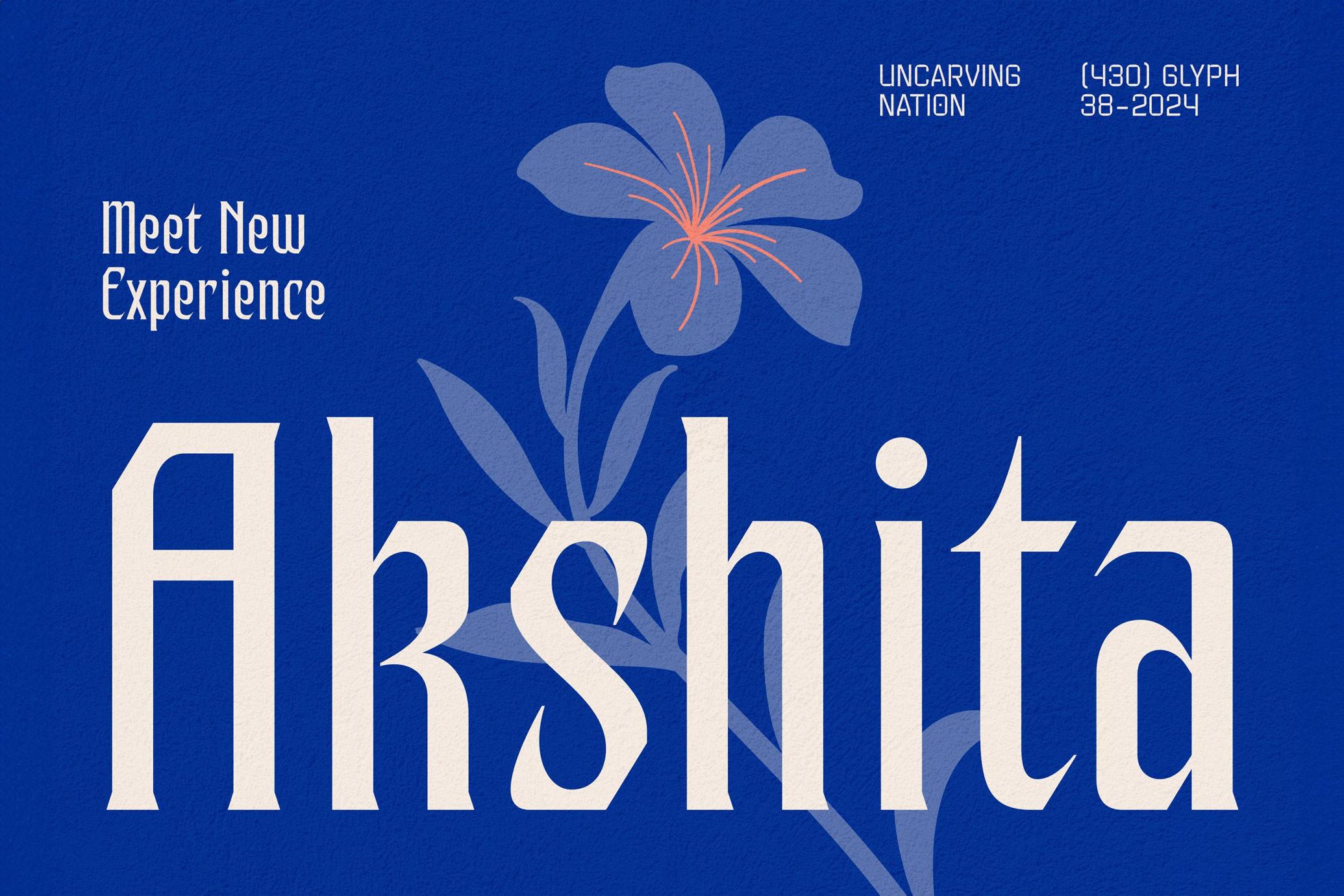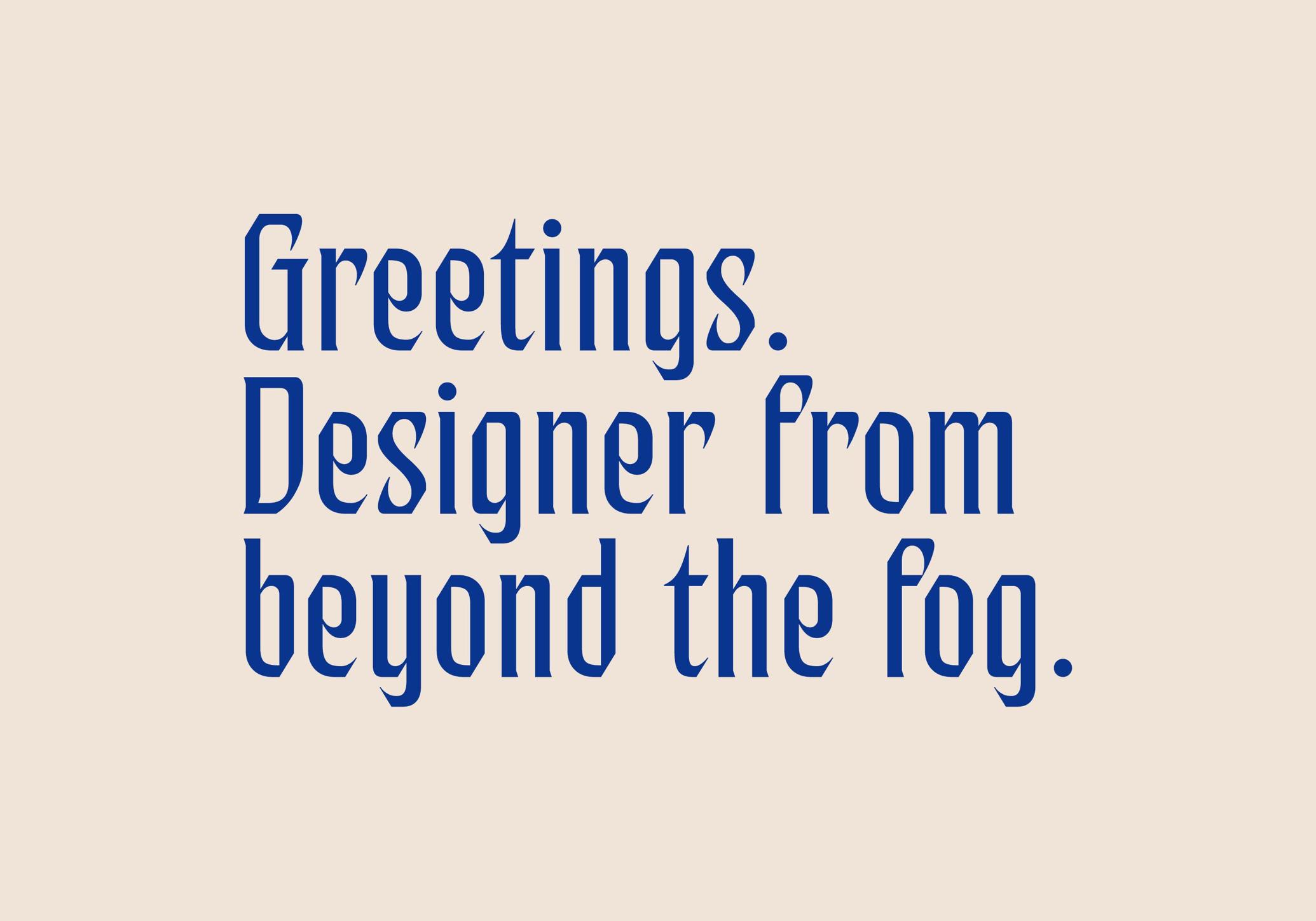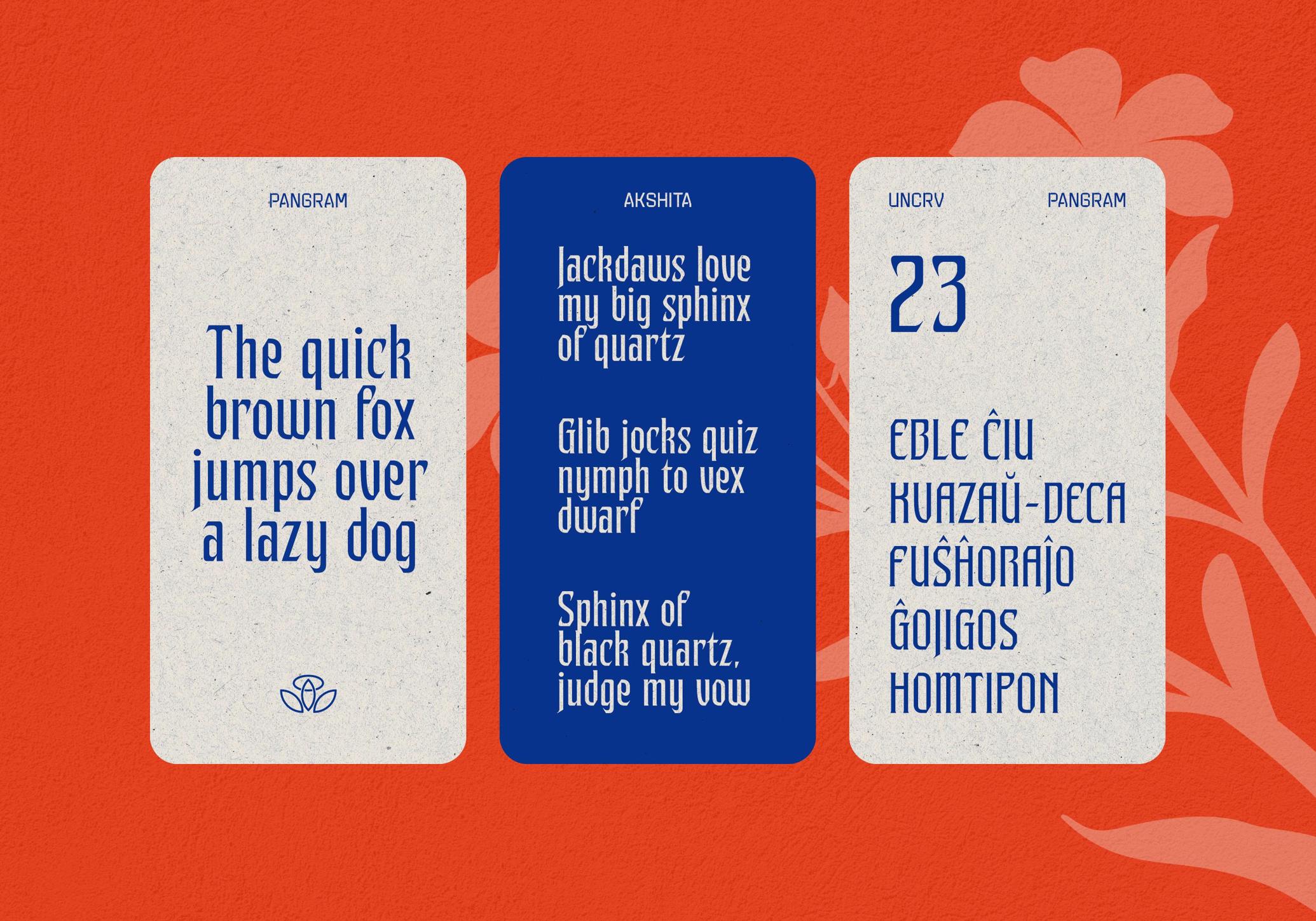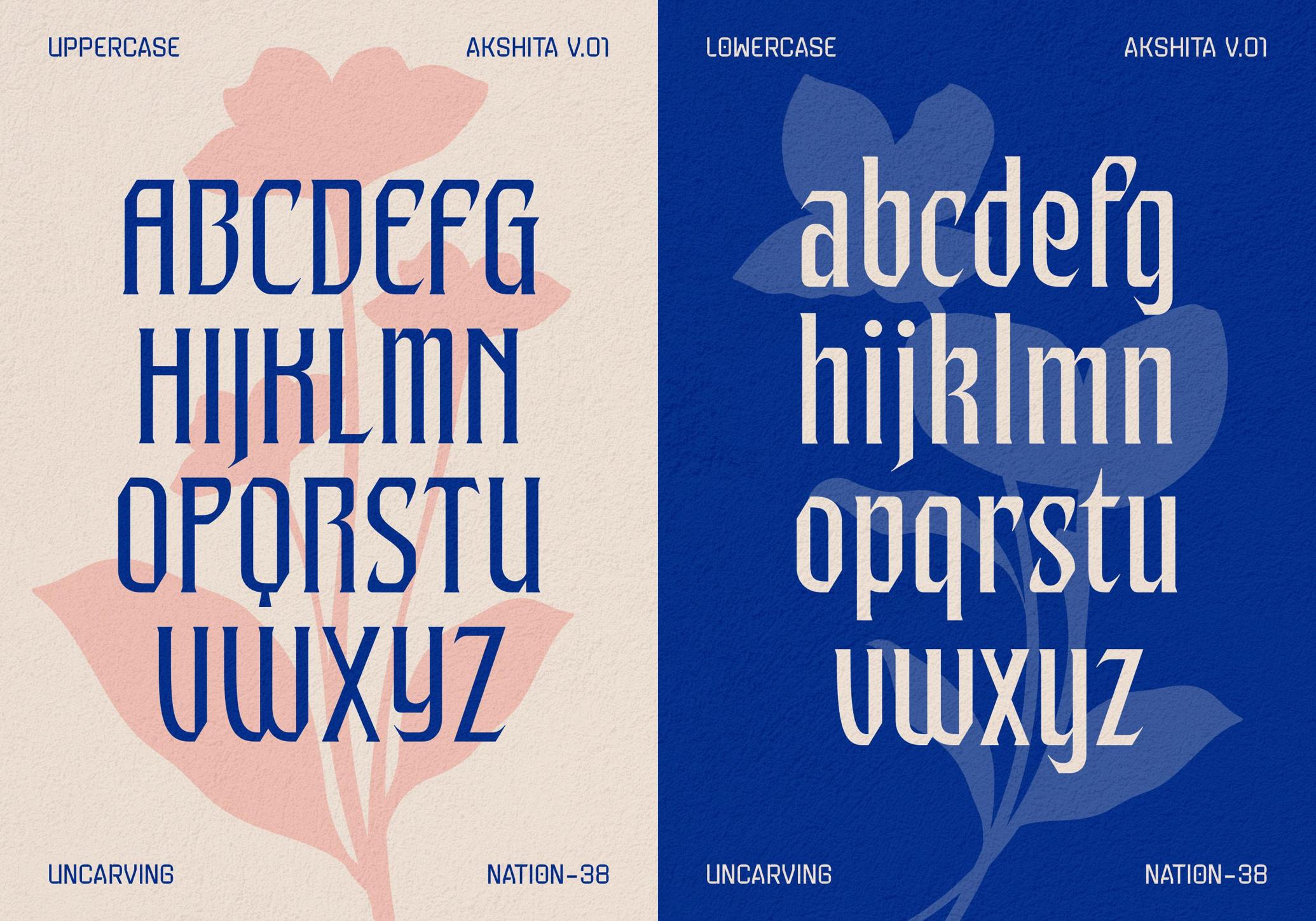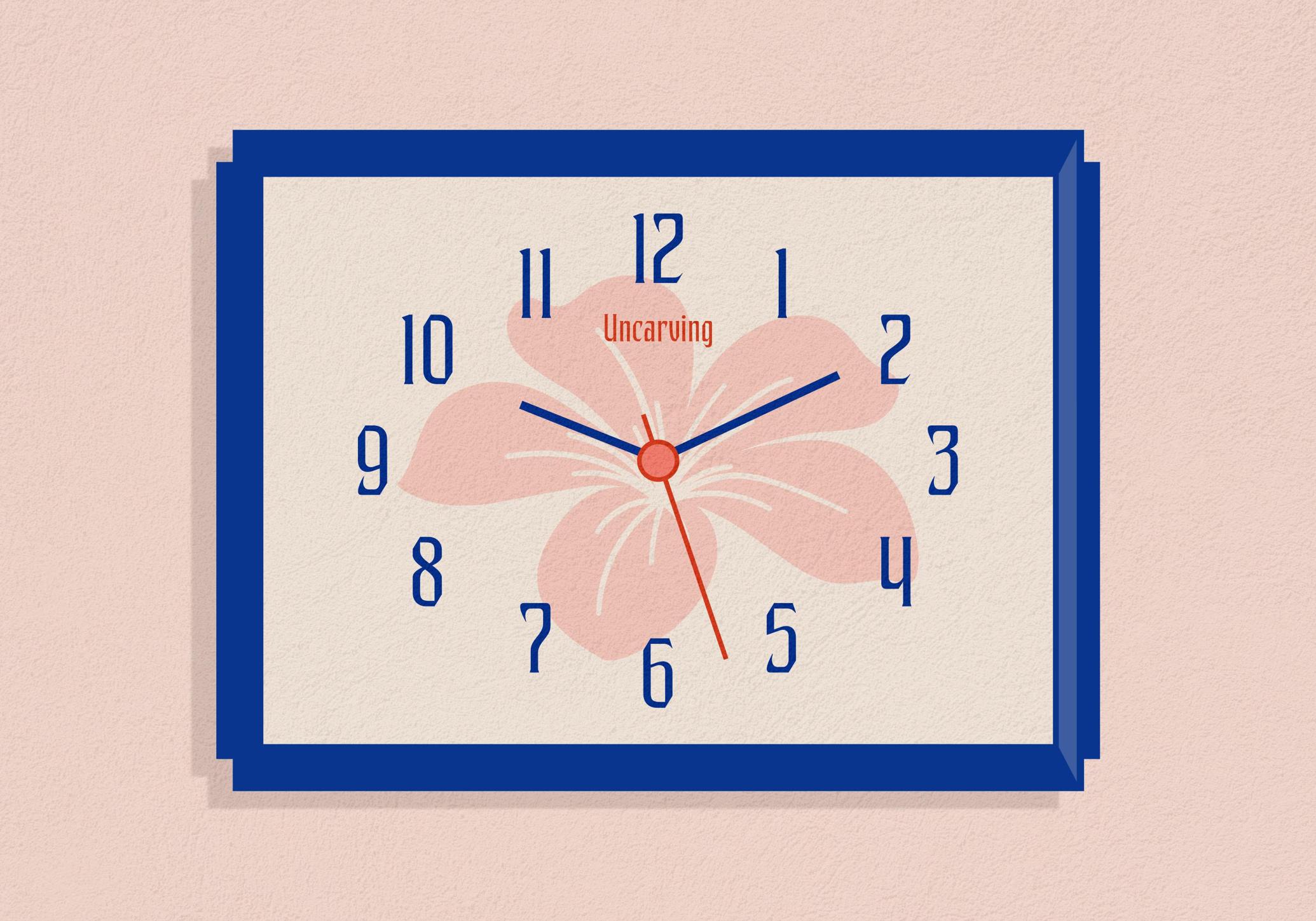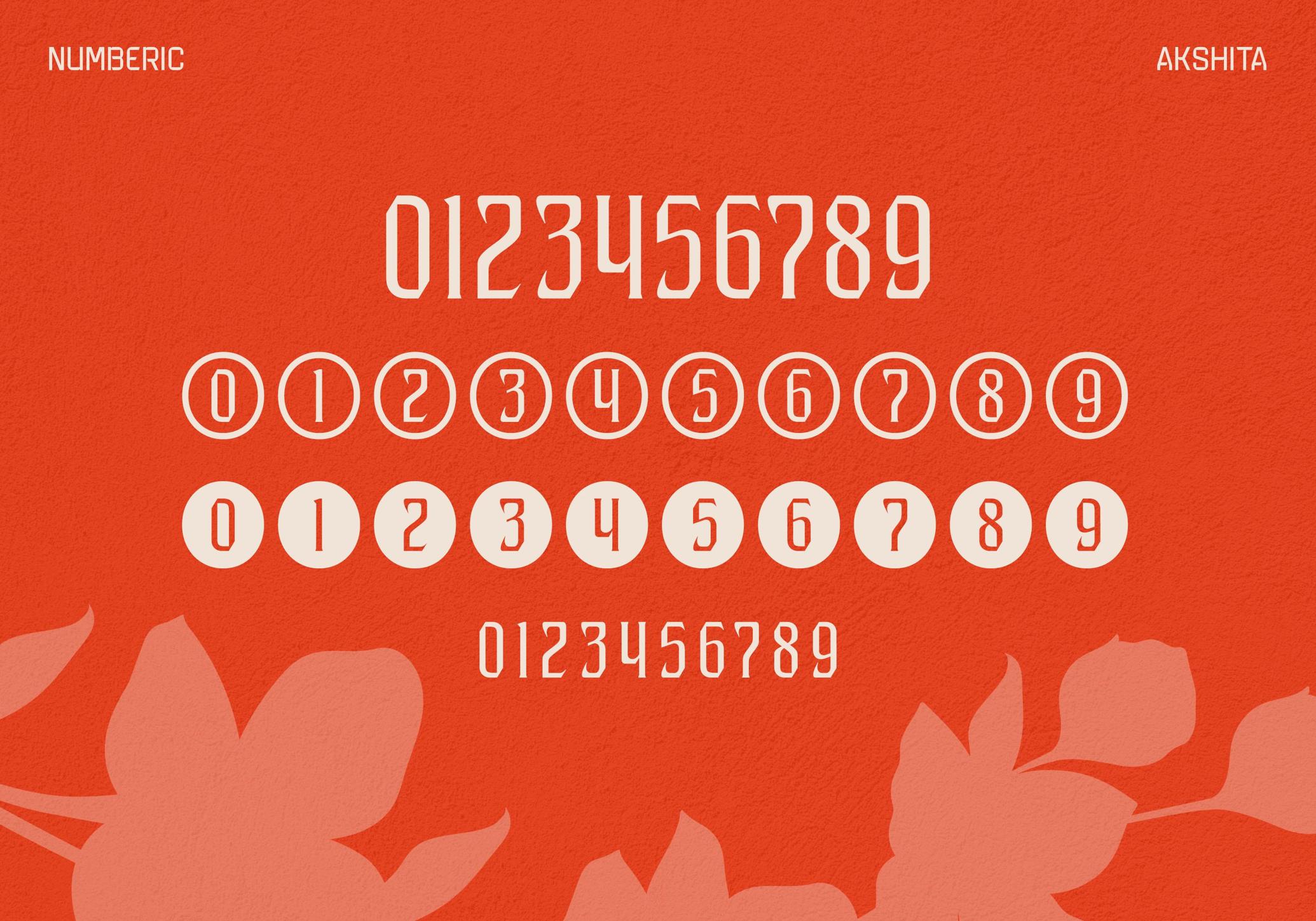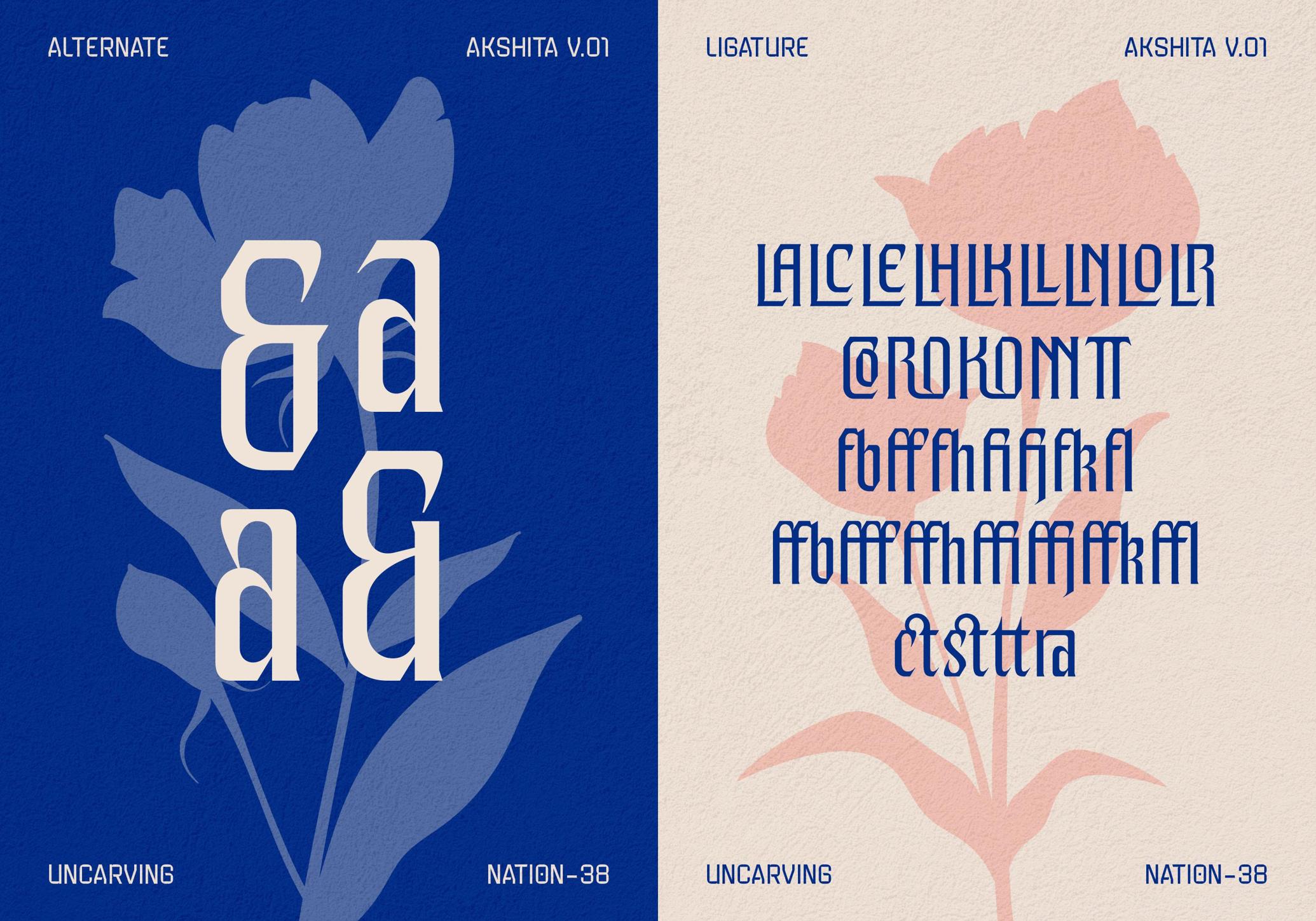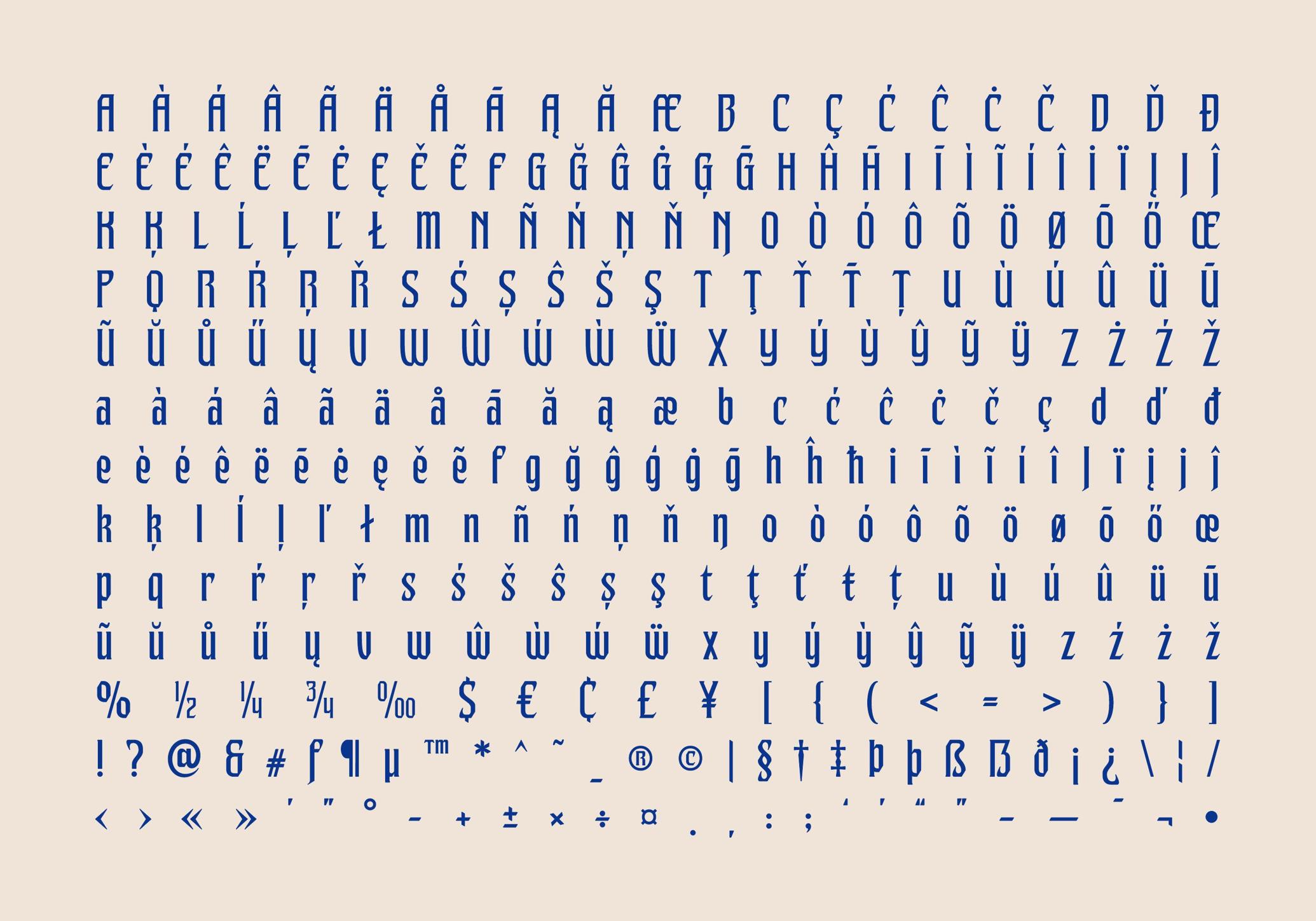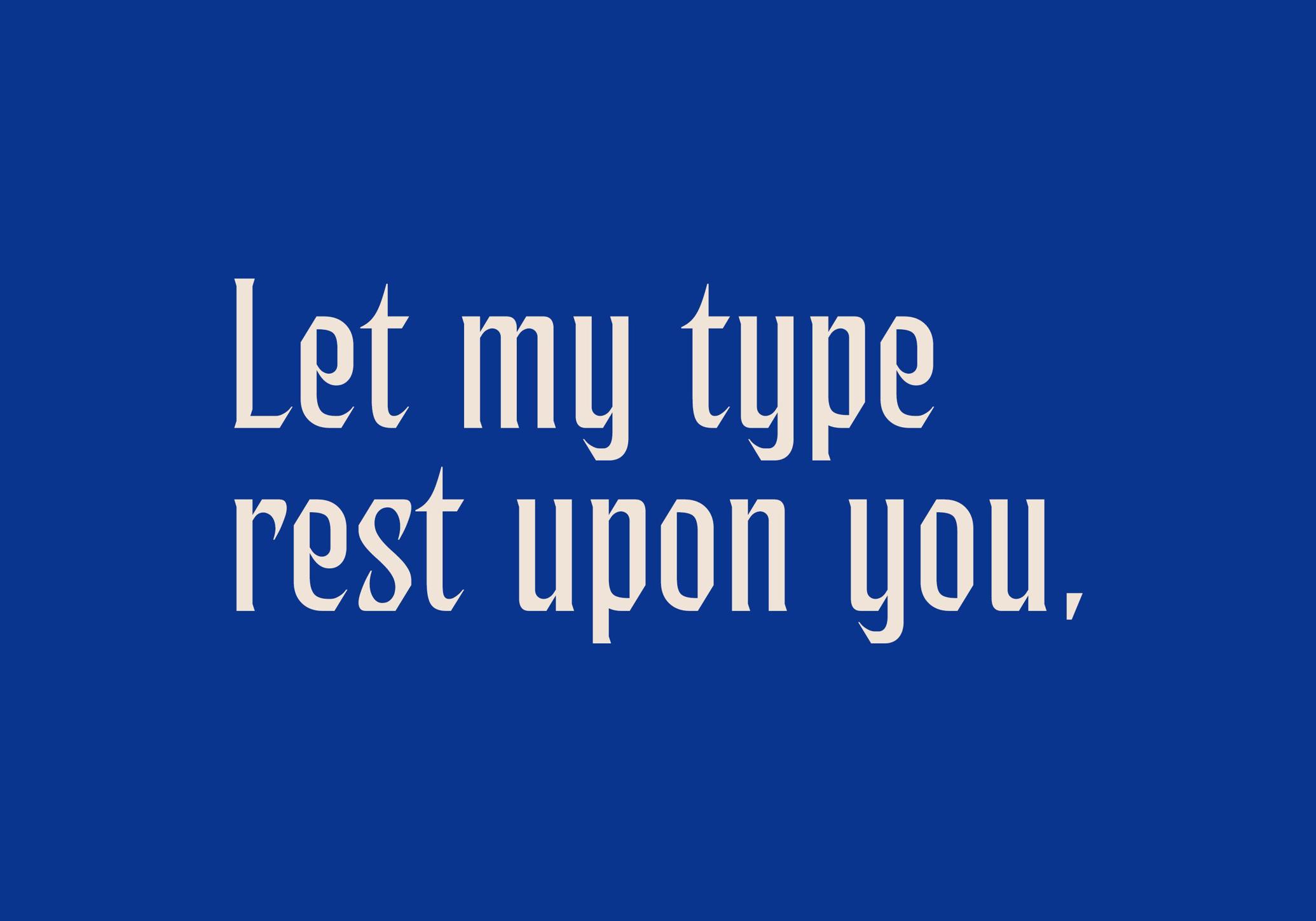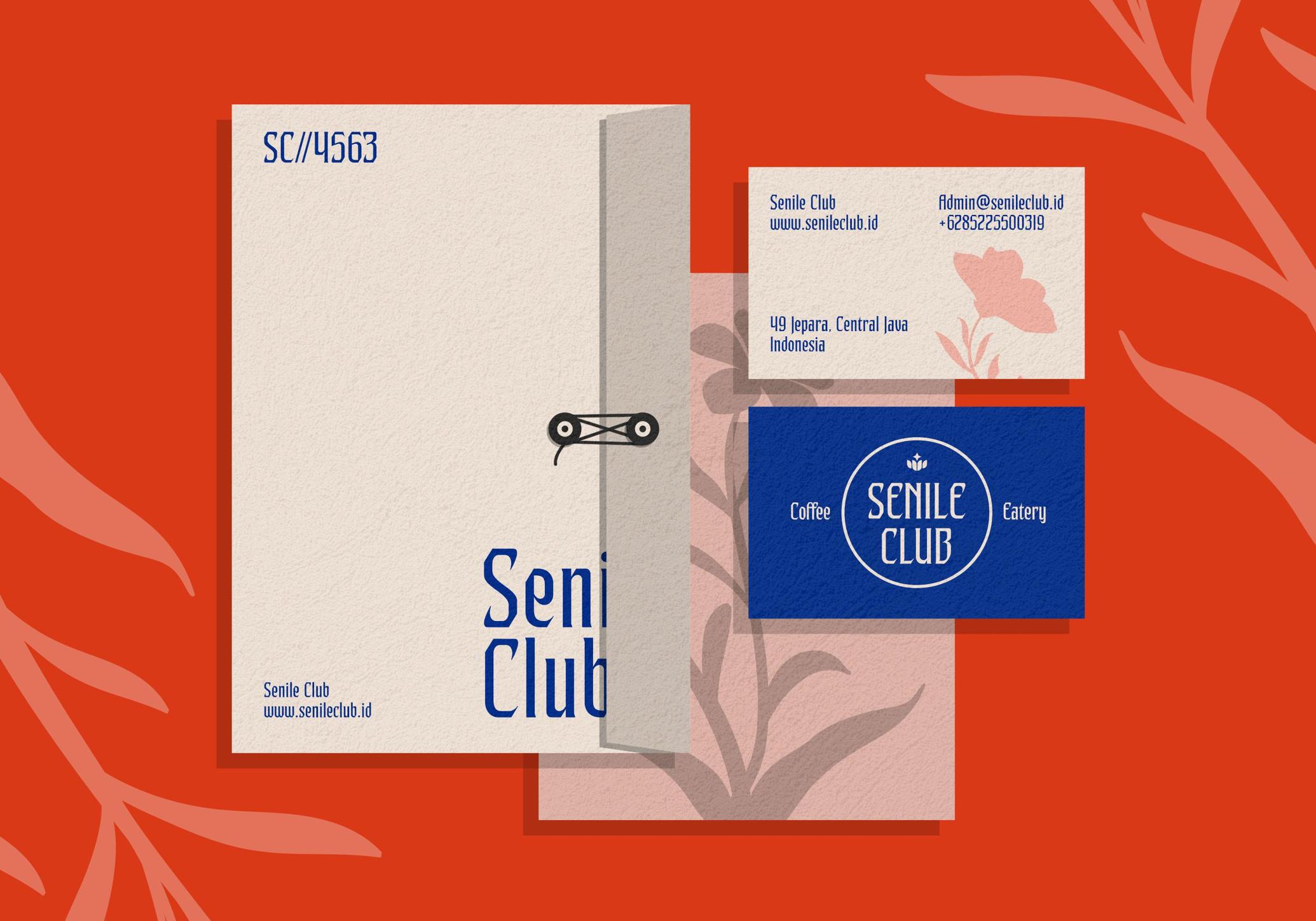
Akshita Display Font
Akshita plays with vertical rhythm and Gothic undertones, bringing an ornamental edge to a clean sans structure. Each letterform balances sharp spines with soft curves, giving it a sculptural presence that works across contemporary and heritage-inspired layouts alike.
The font lends itself well to editorial titles, packaging, fashion lookbooks, album artwork, signage, posters, and experimental branding. Its extended uppercase forms hold space confidently in print and digital layouts, while the lowercase set maintains legibility at mid to large sizes.
The font includes a complete character set, multilingual support, punctuation, symbols, and shapes.